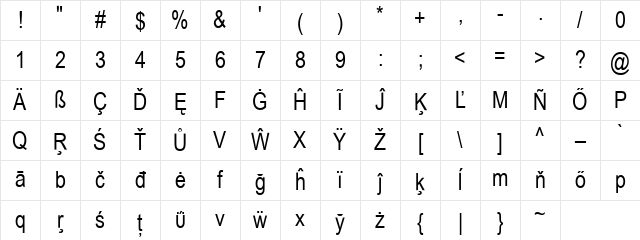
LinguineLinguist Regular
Design Context for LinguineLinguist
LinguineLinguist is a composed and adaptable typeface that performs quietly and consistently across a wide range of design contexts.